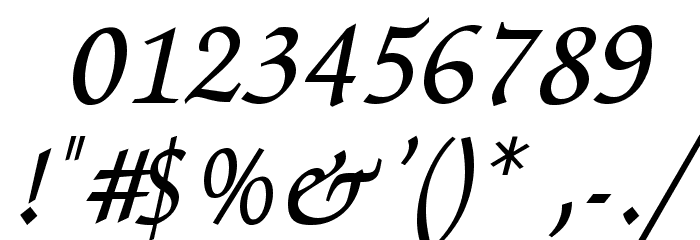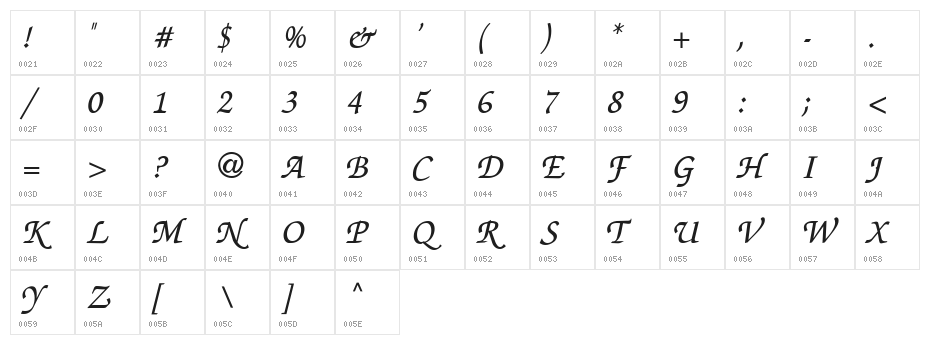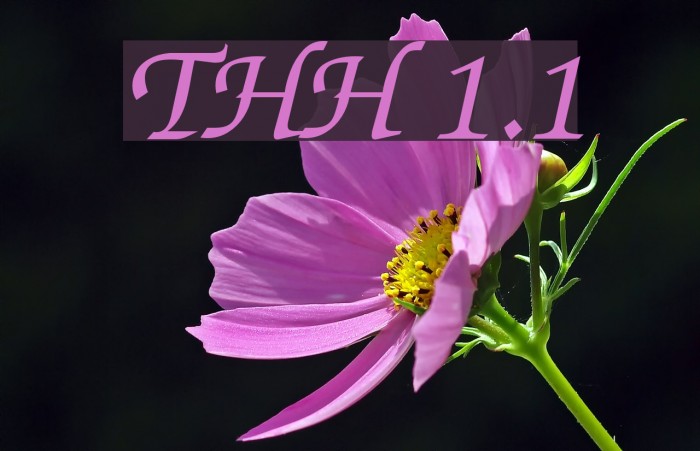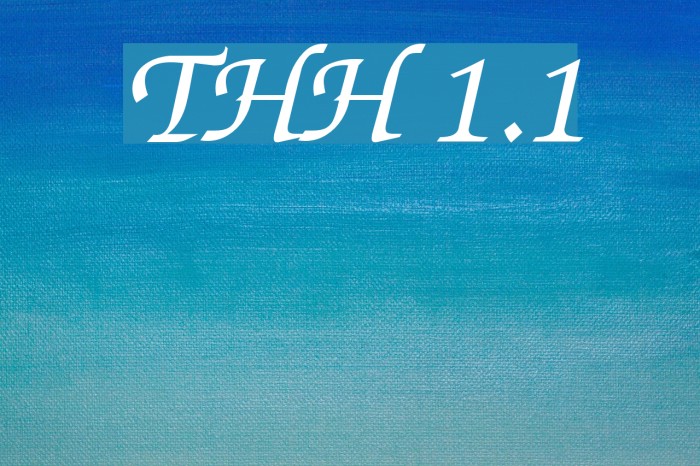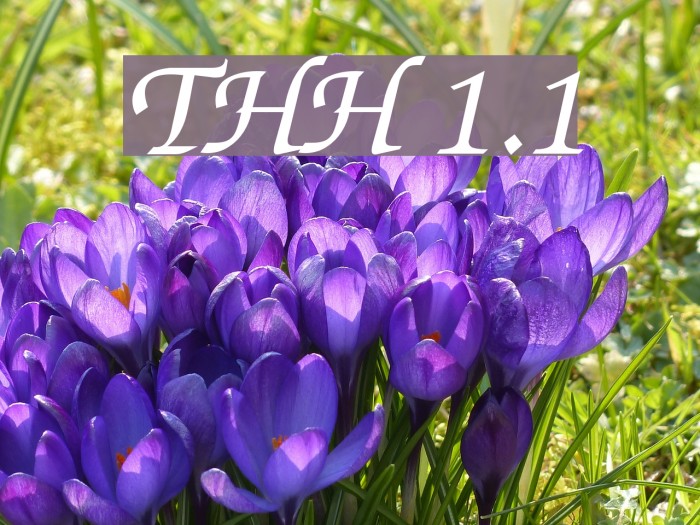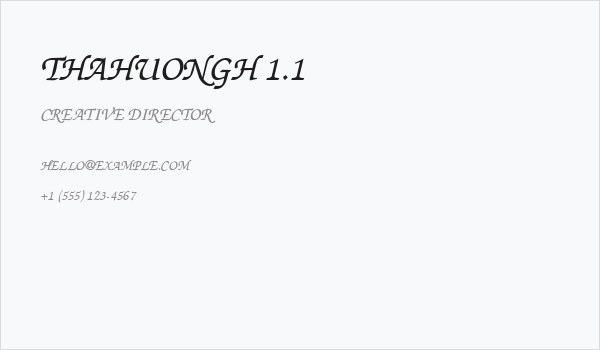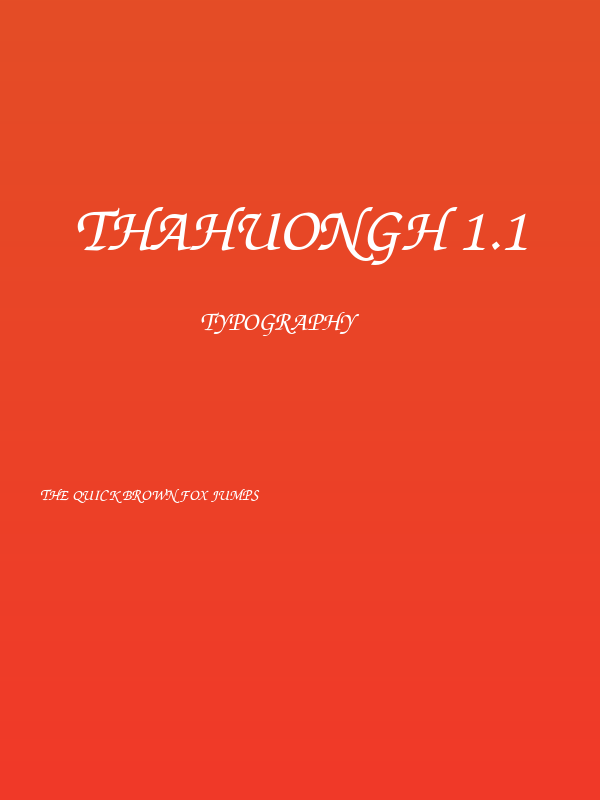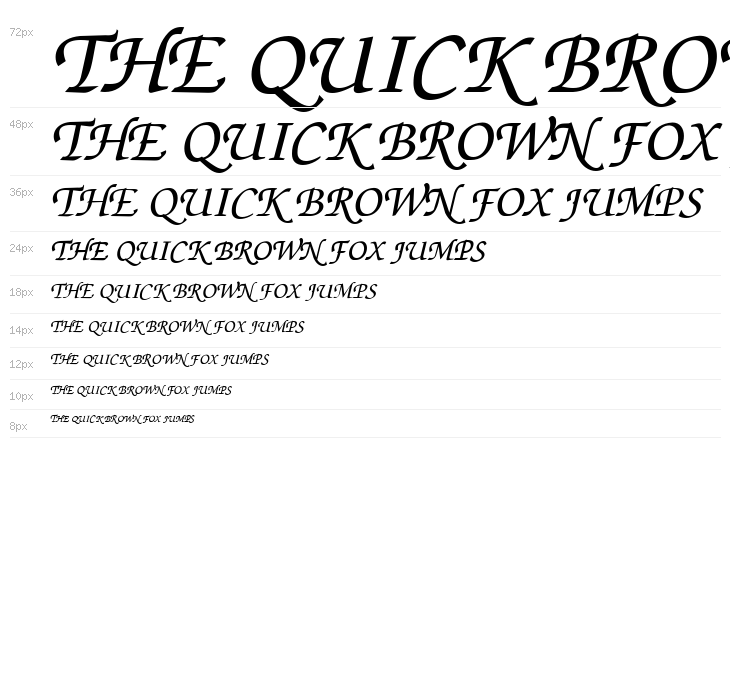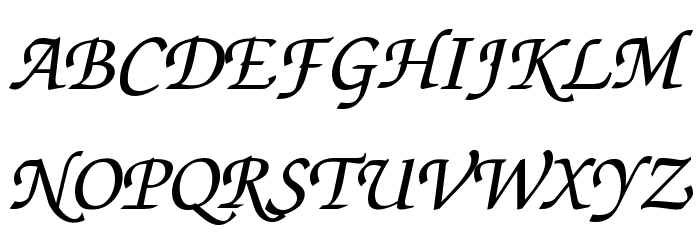
ThaHuongH 1.1 Font
ThaHuongH 1.1 Description
This font features an elegant and flowing script style, characterized by its smooth, cursive strokes and a sense of fluidity. The uppercase letters are bold and dynamic, with a slight slant that adds a touch of sophistication. The lowercase letters maintain a consistent style, complementing the uppercase with their graceful curves. Numbers are designed with the same attention to detail, ensuring readability while maintaining the font's overall aesthetic. Special characters are integrated seamlessly, offering versatility for various design needs. The font's artistic flair makes it suitable for projects that require a touch of elegance and creativity.